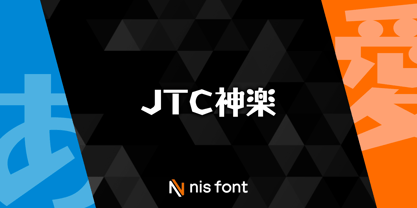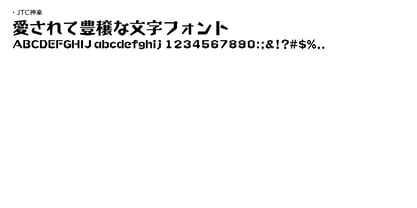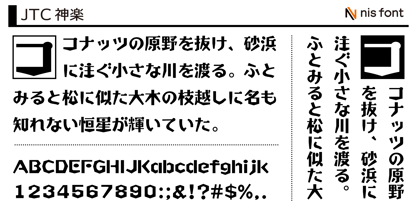
The festive brilliance of a celebration, the rhythm of traditional music, and the coexistence of modern and retro—a typeface that embodies all of these elements. Incidentally, the signage in Terauchi Park, located in Kagurazaka, was created using this typeface. Note: This typeface supports the JIS2004 character set.